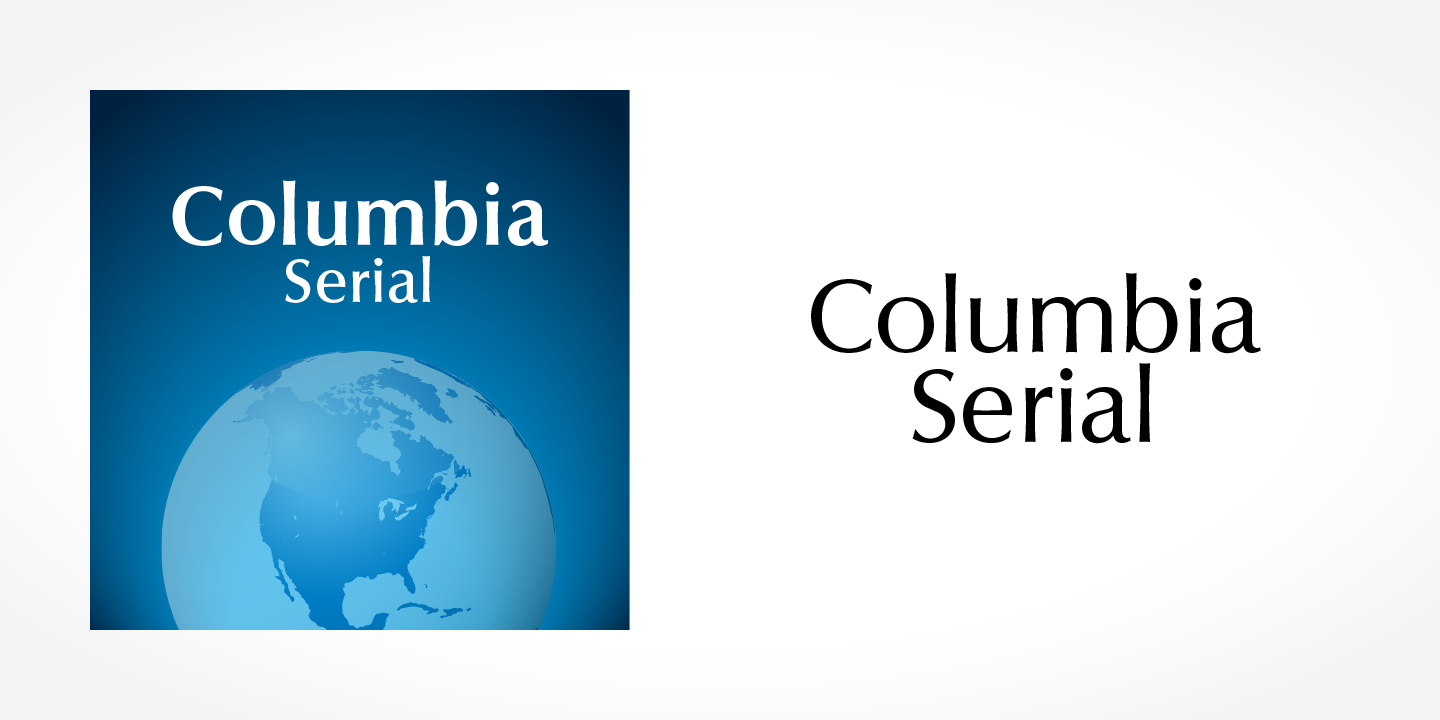
Columbia Serial Font Free Download is a sleek and versatile sans-serif typeface perfect for branding, editorial design, corporate identities, website headers, and advertising materials. Its clean lines and balanced proportions make it highly readable and visually appealing.
What makes this font so exciting is its modern, minimalist design that fits effortlessly into a wide range of projects—from digital platforms to print media. Columbia Serial Font brings clarity and professionalism to your visual communications.
Columbia Serial Font offers multiple weights such as Light, Regular, Medium, Bold, and Black, allowing designers to create dynamic typographic hierarchies and versatile layouts.
Elevate your designs with the clean and confident style of Columbia Serial Font Free Download, and make your message stand out with precision and elegance.